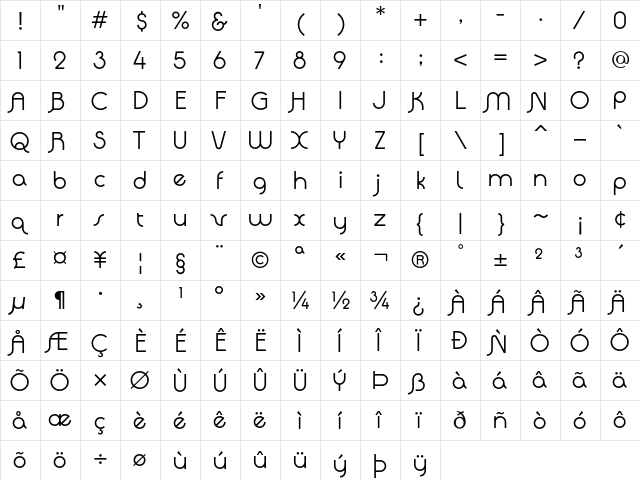
Quadranta Regular
| Foundry | Darim Kim |
| Designer | Darim Kim |
Design Context for Quadranta Typeface
Quadranta offers clean, dependable letterforms without strong stylistic allegiance, making it a practical choice for designers who need flexibility.
Pro Tip: Pair Quadranta with a font of contrasting weight or personality to build a more expressive typographic hierarchy.